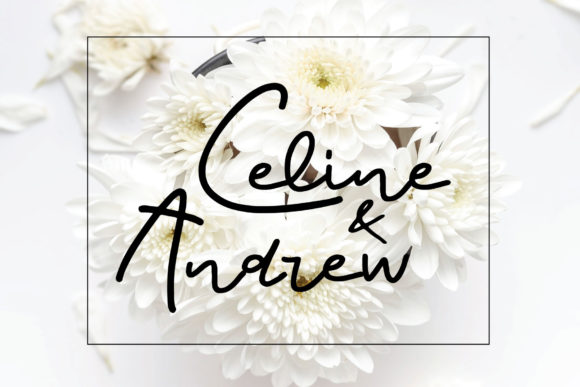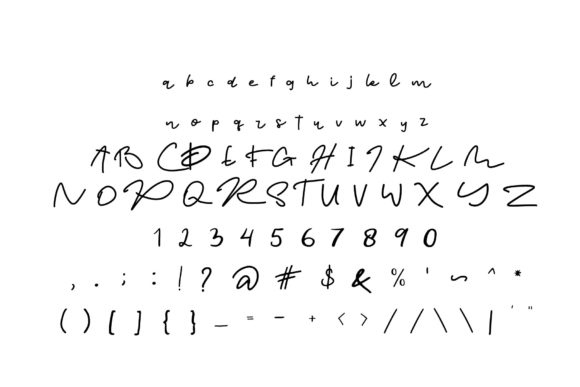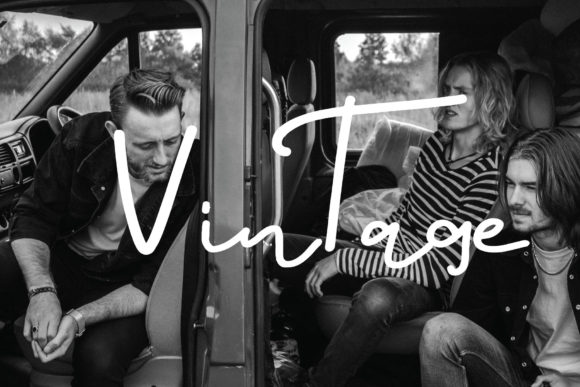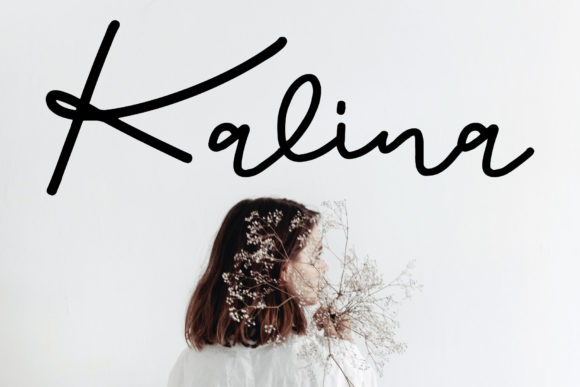
HomeScript FontsSweet Heart Font Script Fonts Sweet Heart Font FacebookXPinterestWhatsApp Sweet Heart Font Poster 2 Sweet Heart Font Poster 3 Sweet Heart Font Poster 4 Sweet Heart Font Poster 5 About Sweet Heart Font Sweet Heart is, as the name suggests, an incredibly romantic and lovely script. Get inspired by its unique look! DOWNLOAD ON CREATIVE FABRICAThis font is sold and delivered by Creative Fabrica. Font Canyon may earn a commission if you buy through this link. People also explored Hi Mellati Font Yuliya Font Square Tag Mockup Thank You Tag Denma Font Metaverse Font Dicella Font Farmhouse Font Textbook Chocoffee Font 370 0 TagsSweet Heart Font Previous articleJasper Kusack FontNext articleHimalaya Font LEAVE A REPLY Cancel reply Comment: Please enter your comment! Name:* Please enter your name here Email:* You have entered an incorrect email address! Please enter your email address here Website: Save my name, email, and website in this browser for the next time I comment. Personal Use Free Bitcrusher Condensed Bold Personal Use Free Read more about this font Midnight Show Personal Use Free Read more about this font Gila Personal Use Free Read more about this font BD Fluke Personal Use Free Read more about this font BLOG How to Cut Any Font on Cricut: Convert a Font to SVG (Free) Turn any font into a clean SVG so it cuts crisp on Cricut - a quick 3-step workflow using a free font-to-SVG tool. Transform Your Website: Elevate Your Typography with 7 Best Web Font Generators Top 10 Handwritten Fonts That Elevate Your Designs To increase your work productivity, choose the most readable fonts.